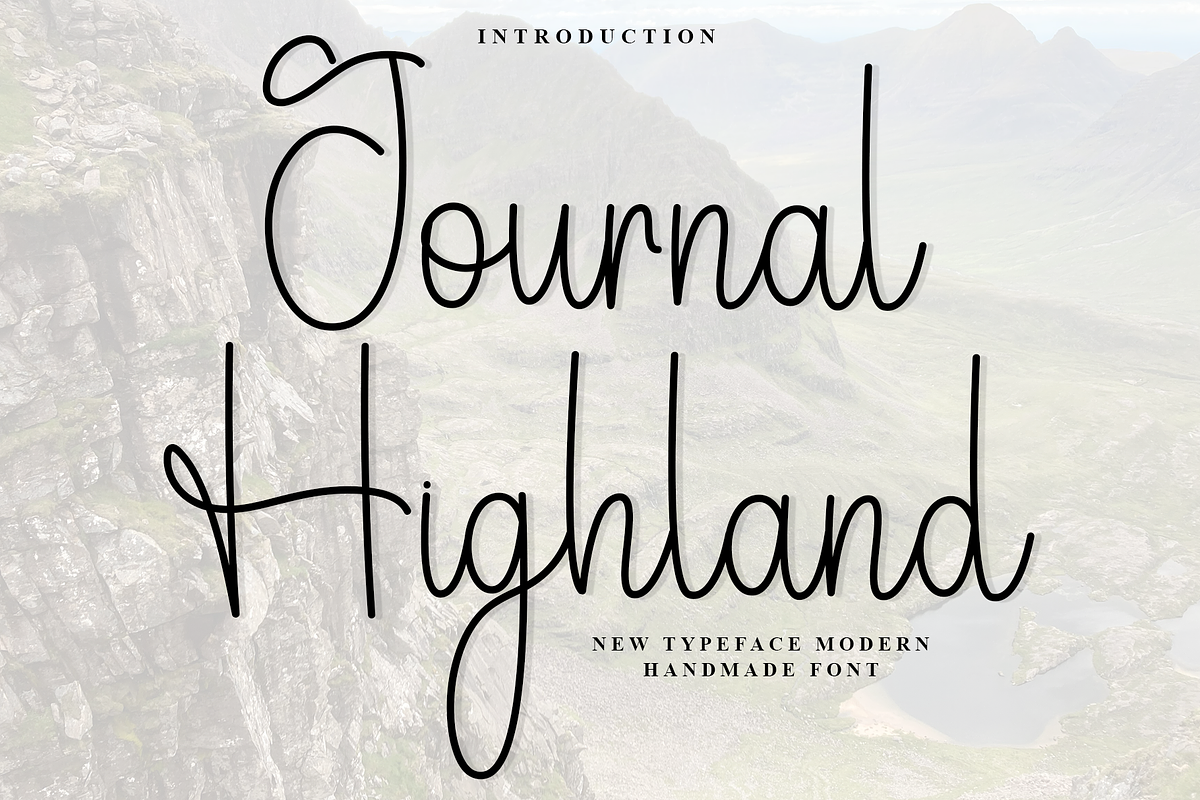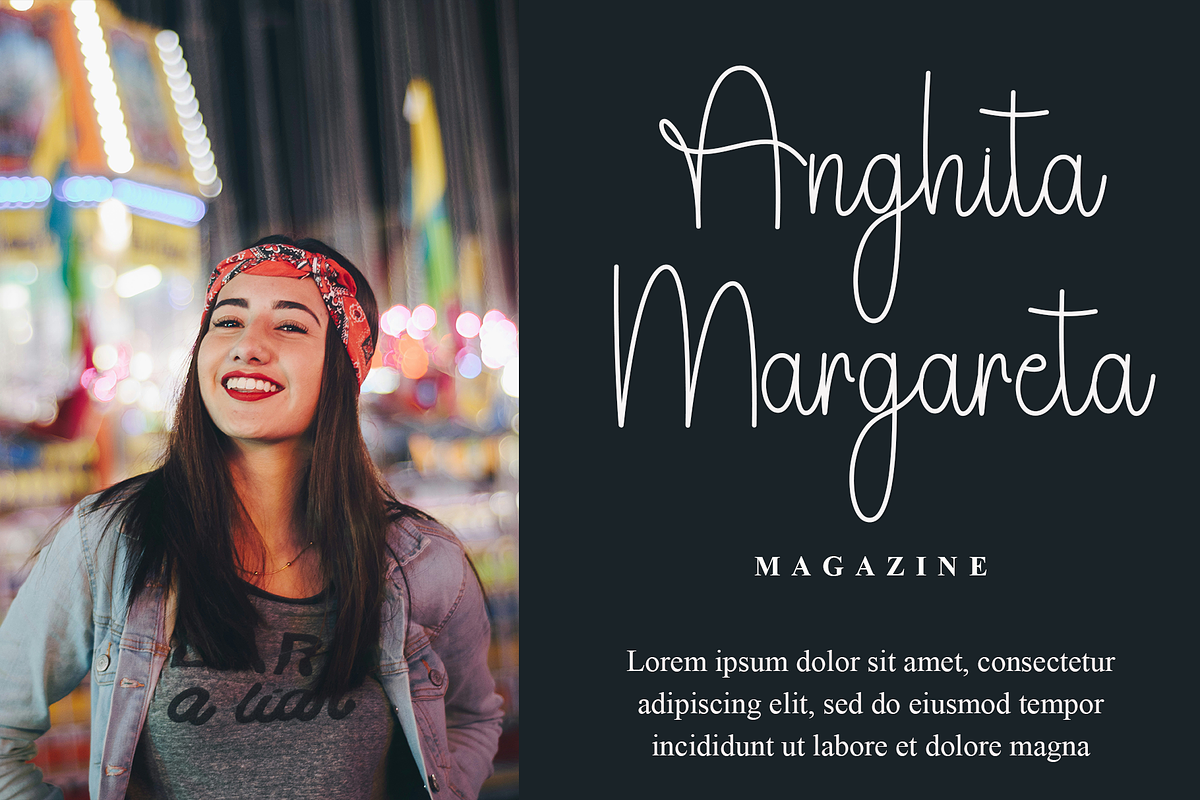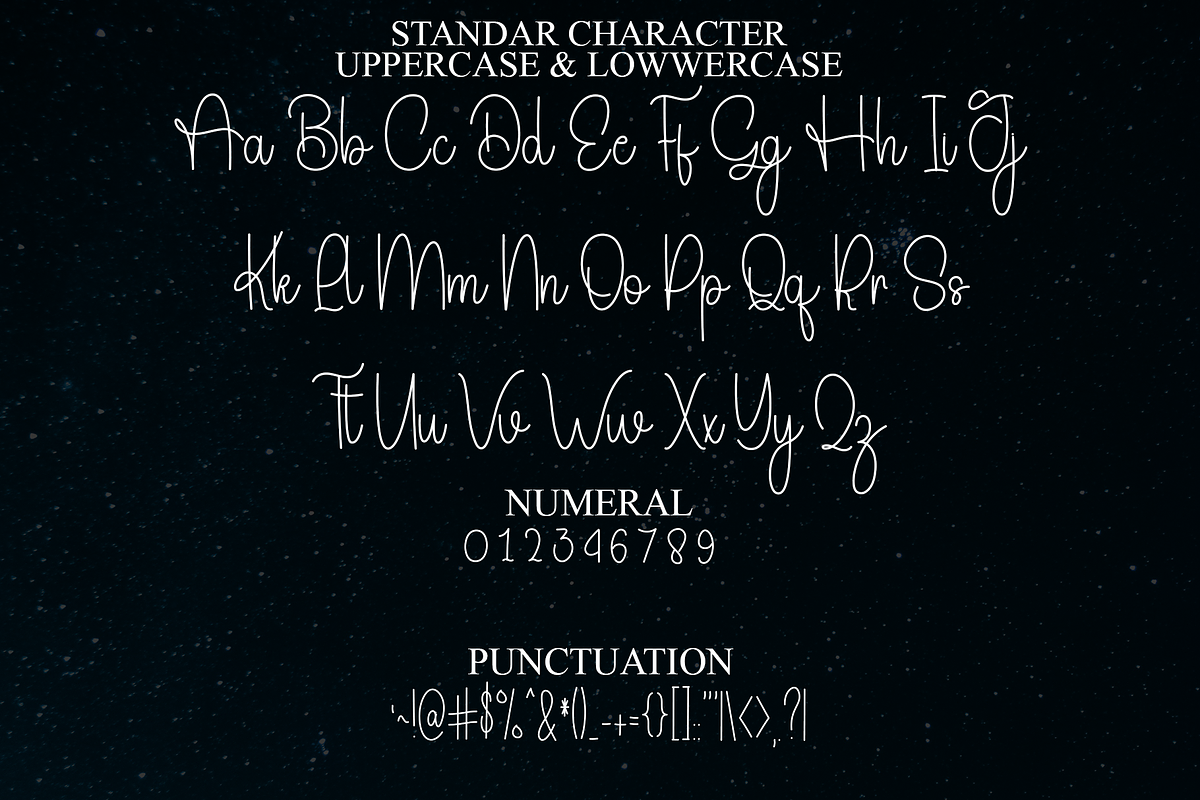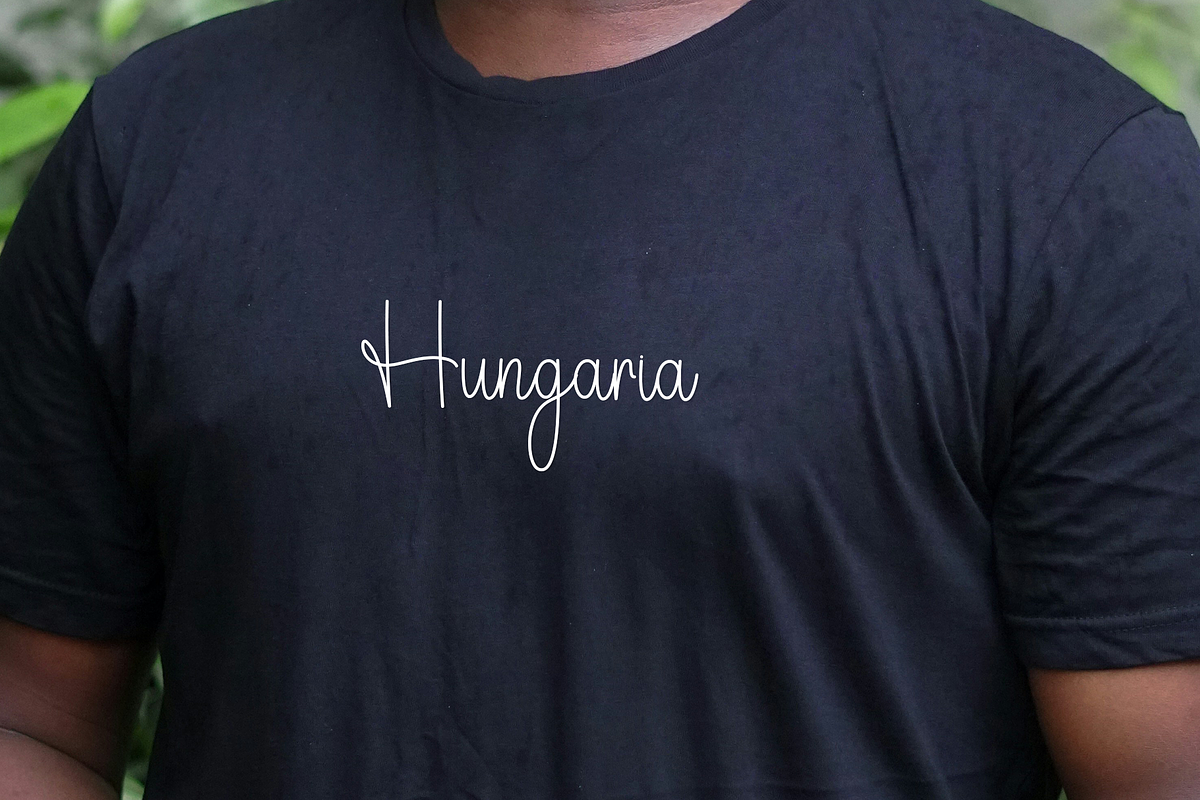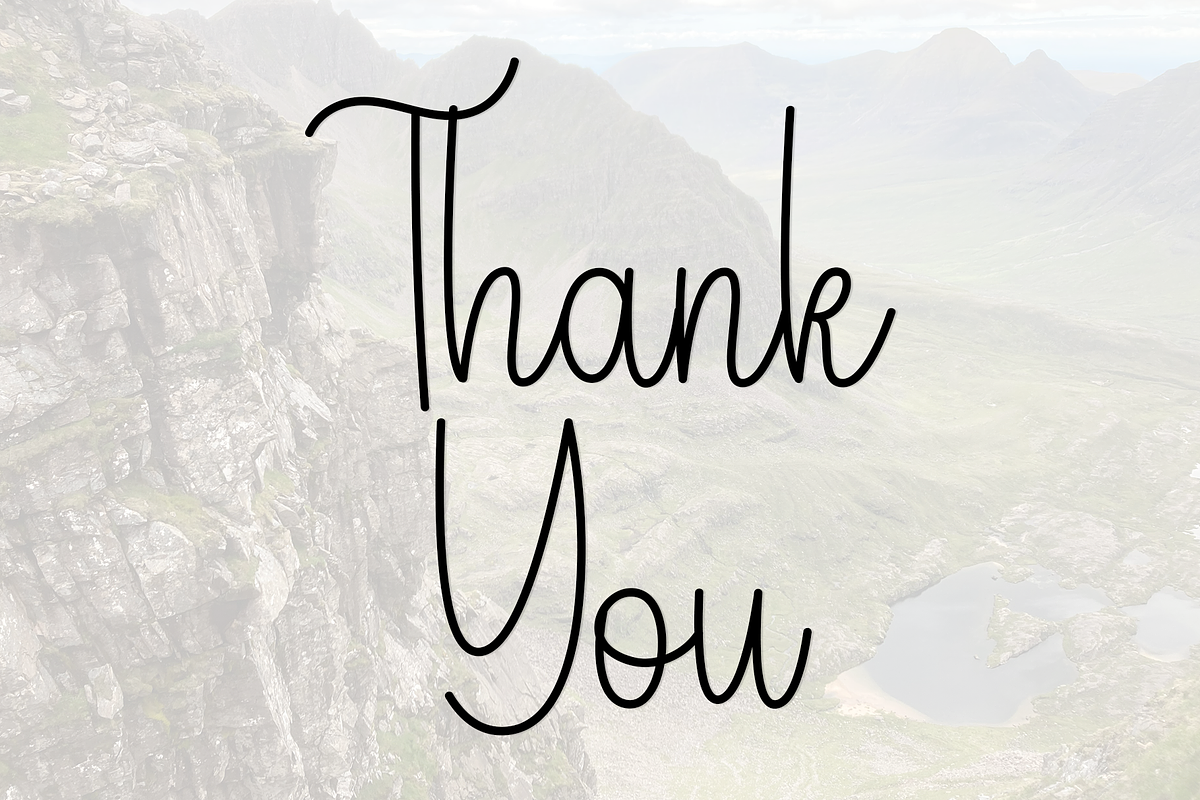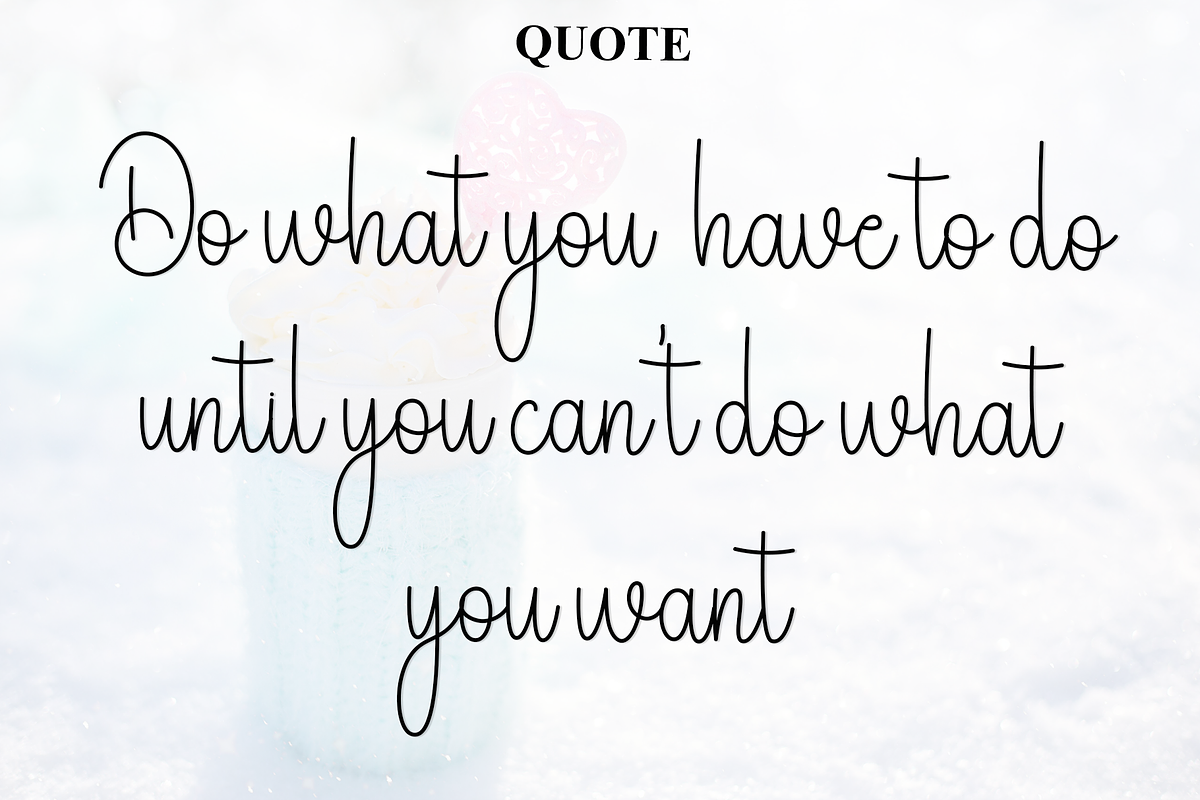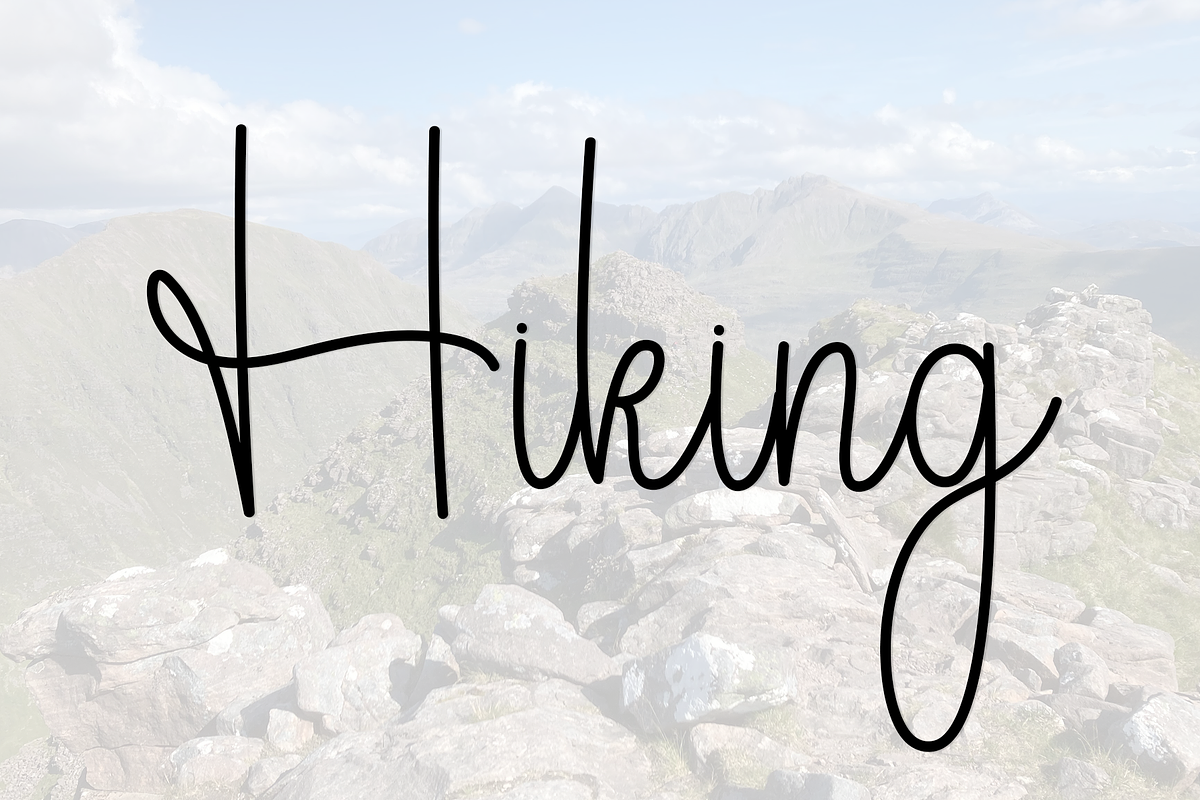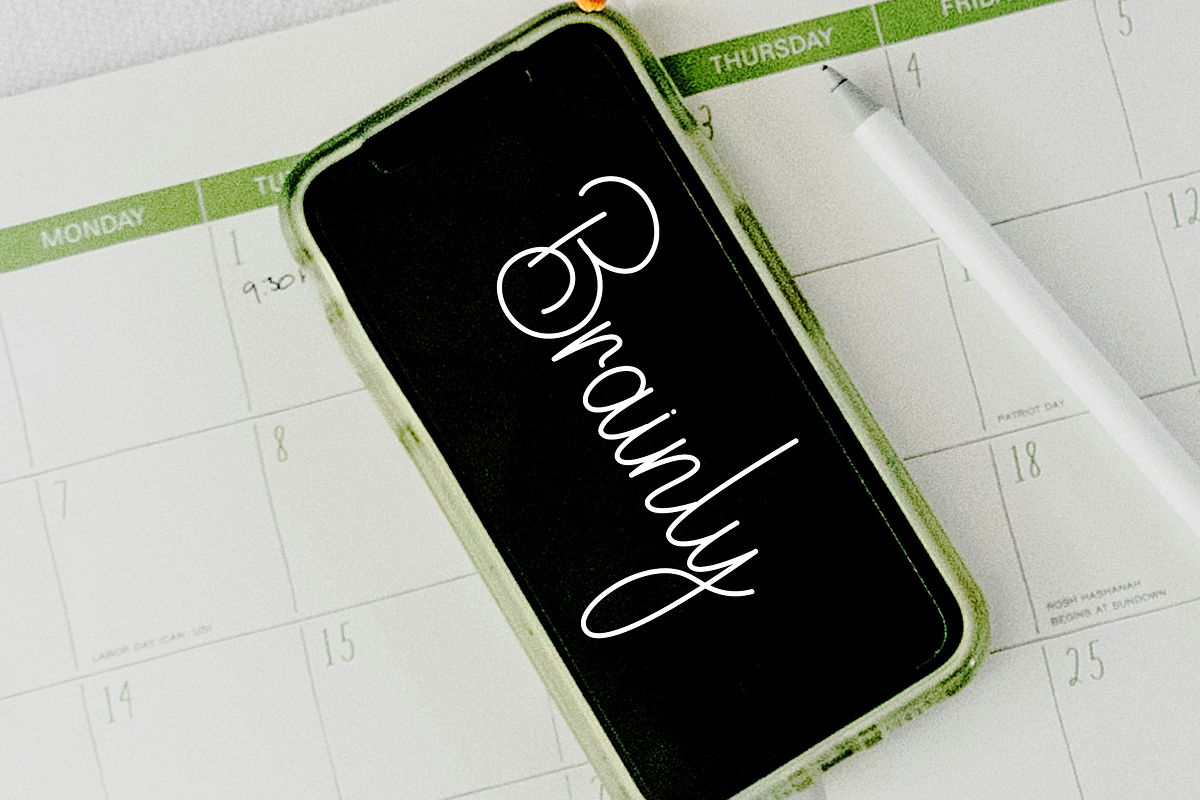
Journal Highland
Journal Highland is a beautiful and eye-catching font designed with a soft, unique touch. Its distinctive strokes give it a special character, making it meaningful and versatile for future use. With various characters, it’s perfect for design projects, crafts, and other creative works.